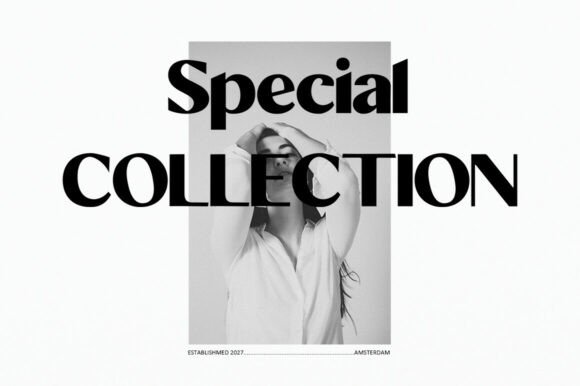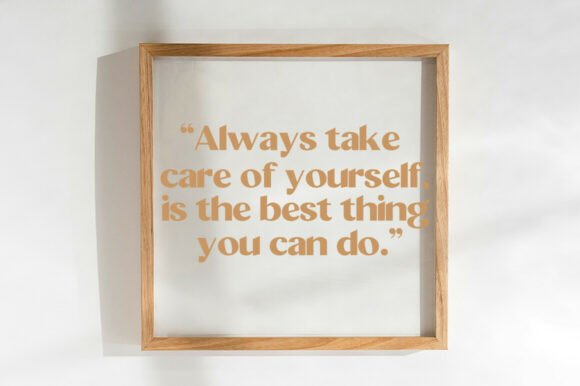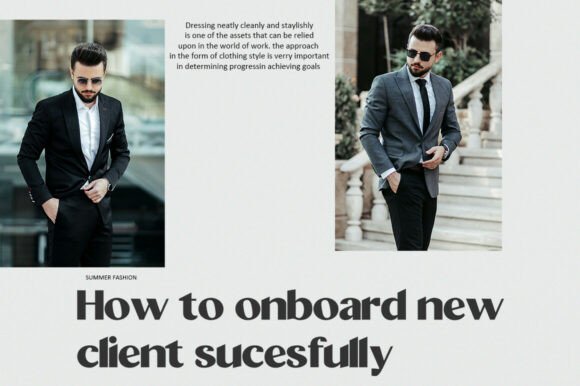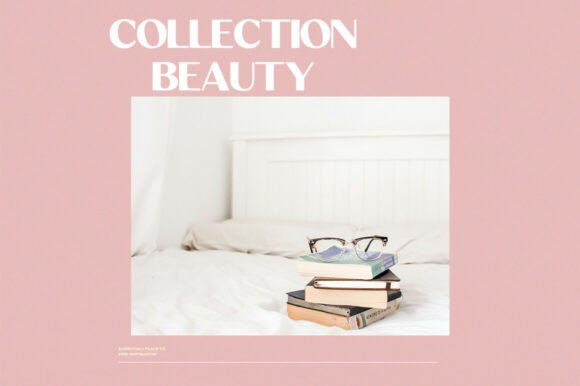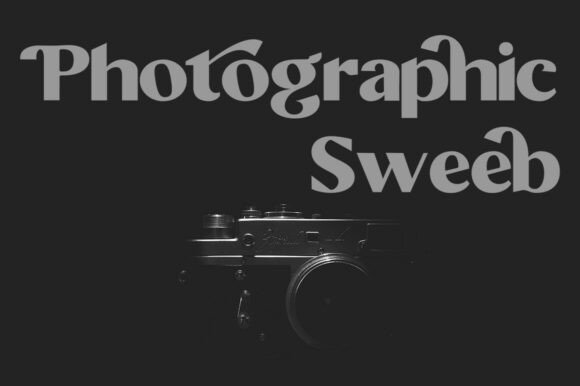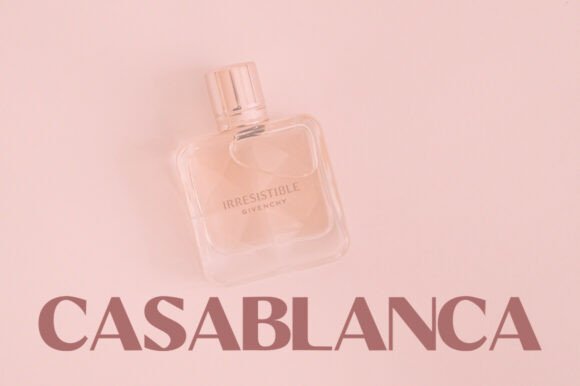
Astreon Font: The Epitome of Elegance and Modernity
In the realm of typography, the right font can elevate a design from mundane to extraordinary. For those seeking a typeface that embodies smoothness, cleanliness, uniqueness, elegance, modernity, femininity, sensuality, and glamour, look no further than the Astreon Font. This exquisite font is not just a typeface; it’s an experience, designed to bring a touch of sophistication and allure to any project it’s applied to.
The Essence of Astreon Font
Astreon Font is characterized by its smooth, clean lines and unique design elements that set it apart from more traditional typefaces. Its elegance and modernity make it an ideal choice for designers and crafters looking to infuse their work with a contemporary yet timeless appeal. The font’s feminine and sensual qualities add a layer of glamour, making it perfect for projects that require a touch of sophistication and allure.
One of the standout features of the Astreon Font is its versatility. Its classic style ensures that it can be applied across a wide range of mediums, from formal invitations and elegant labels to stylish menus and captivating logos. Fashion and makeup brands will find it particularly appealing for use in their branding, packaging, and promotional materials. Moreover, its readability makes it suitable for body text in novels, magazines, books, and greeting or wedding cards.
Crafting with Astreon Font
For crafters and stationery enthusiasts, the Astreon Font opens up a world of creative possibilities. Whether you’re designing custom stationery, creating beautiful letterpress pieces, or crafting romantic novels and poetry, this font adds a professional and polished finish to your work. Its ease of readability ensures that your message is conveyed with clarity and style, making your creations stand out.
Why Choose Astreon Font?
- Smooth and Clean Design: Astreon Font boasts a smooth and clean design that lends a professional touch to any project.
- Unique and Elegant: Its unique design elements and elegant appearance make it perfect for projects requiring a touch of sophistication.
- Modern and Feminine: The font’s modernity and feminine qualities make it ideal for fashion, makeup, and lifestyle brands.
- Highly Readable: Its simplicity and clarity ensure that it is very easy to read, making it suitable for both headings and body text.
- Versatile Application: From invitations and labels to magazines and books, Astreon Font can be applied across a wide range of mediums.
Implementing Astreon Font in Your Designs
Astreon Font is more than just a typeface; it’s a design statement. Its smooth, clean, unique, elegant, modern, feminine, sensual, and glamorous qualities make it a versatile tool for designers and crafters alike. Whether you’re working on a formal invitation, a fashion brand’s logo, or a romantic novel, Astreon Font is sure to bring a level of sophistication and allure that’s hard to match. Embrace the elegance and modernity of Astreon Font in your next project and experience the transformative power of typography.